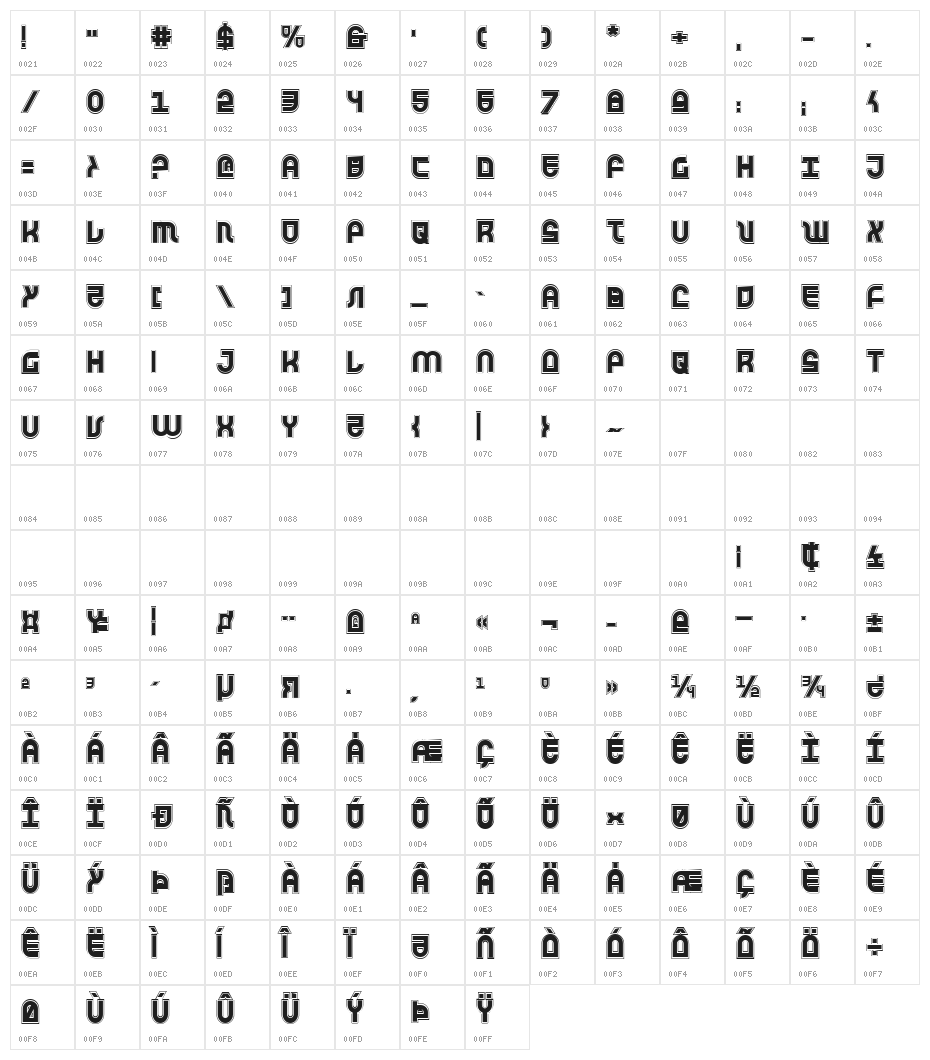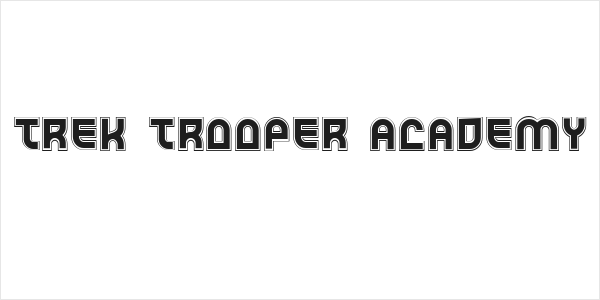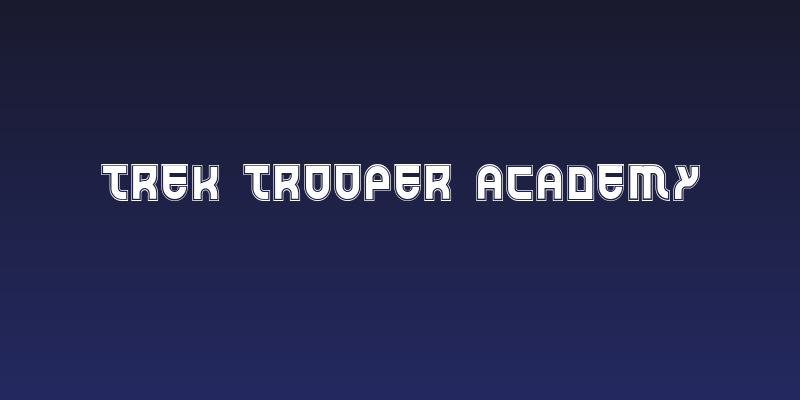
Trek Trooper Academy Font
Trek Trooper Academy Description
This font features a bold, futuristic design with a strong geometric influence. Each character is outlined, creating a striking visual effect that enhances its modern appeal. The uppercase letters are particularly distinctive, with sharp angles and unique shapes that give the font a dynamic and energetic feel. The lowercase letters maintain this aesthetic, offering a cohesive look across all text. The numbers are equally bold and stylized, ensuring consistency throughout. Special characters are included, each designed to match the overall theme. This font is perfect for projects that require a modern, tech-inspired look.
| Proposed Projects | Ideal for sci-fi themed designs, tech branding, video game titles, and futuristic posters. |